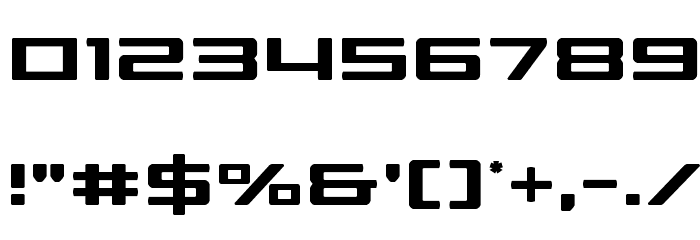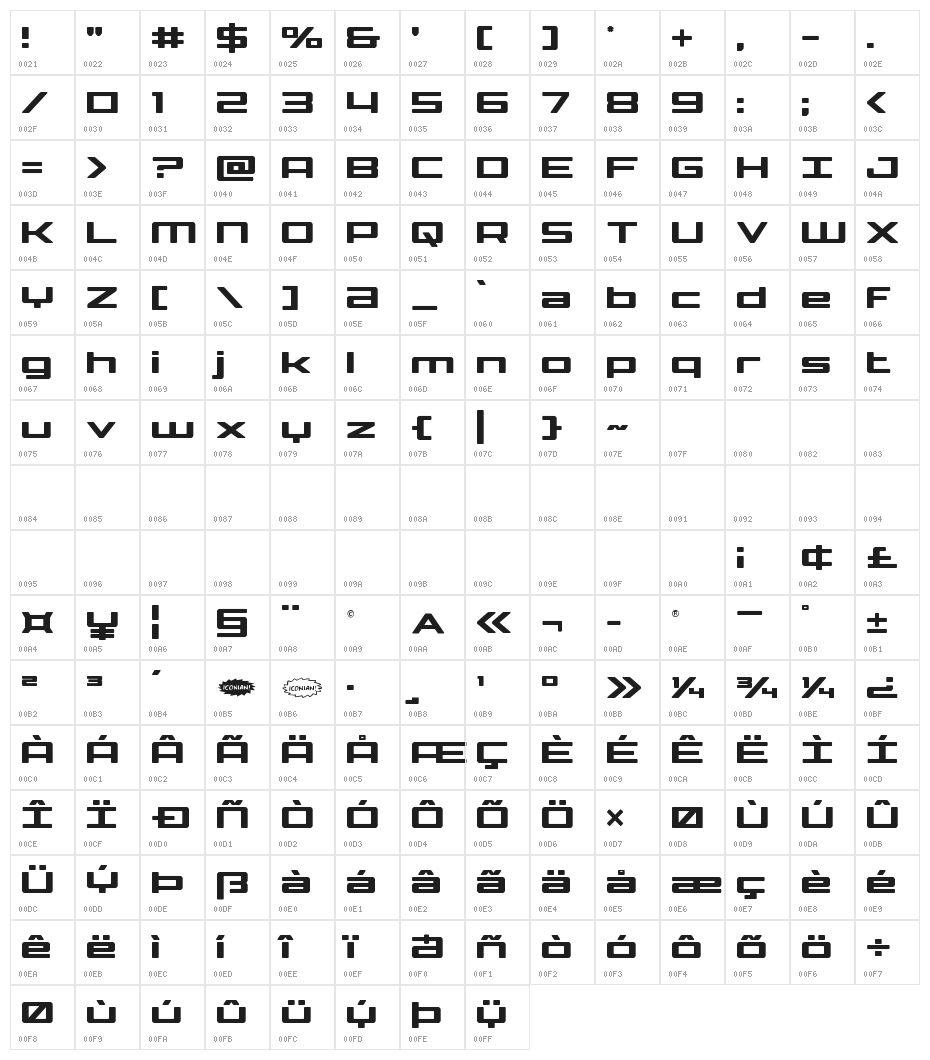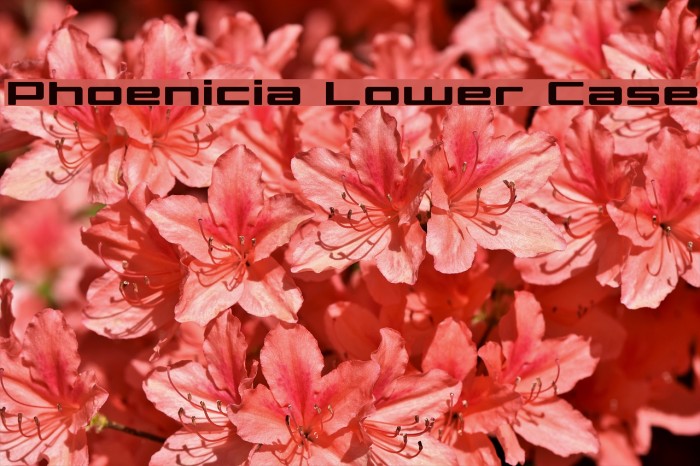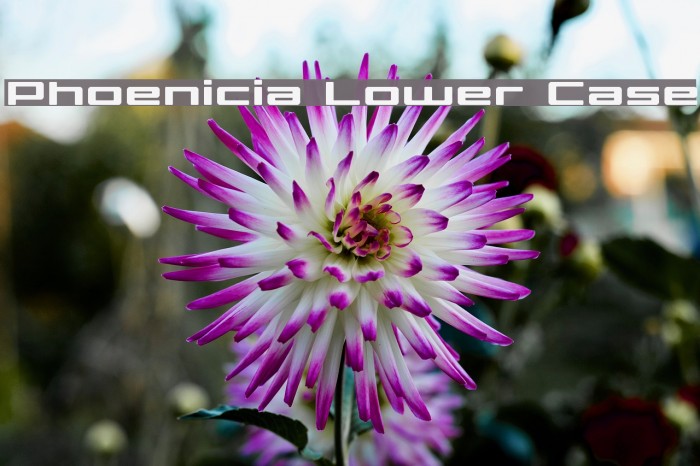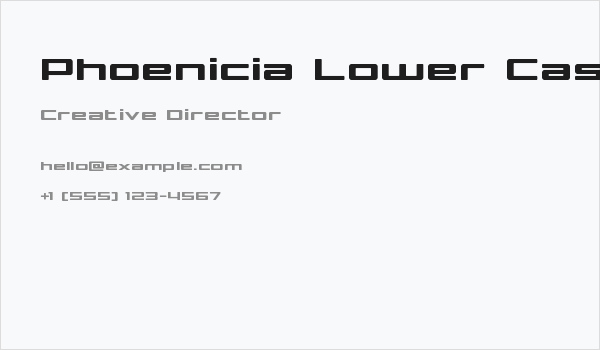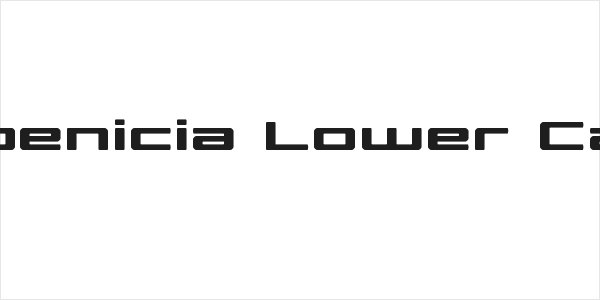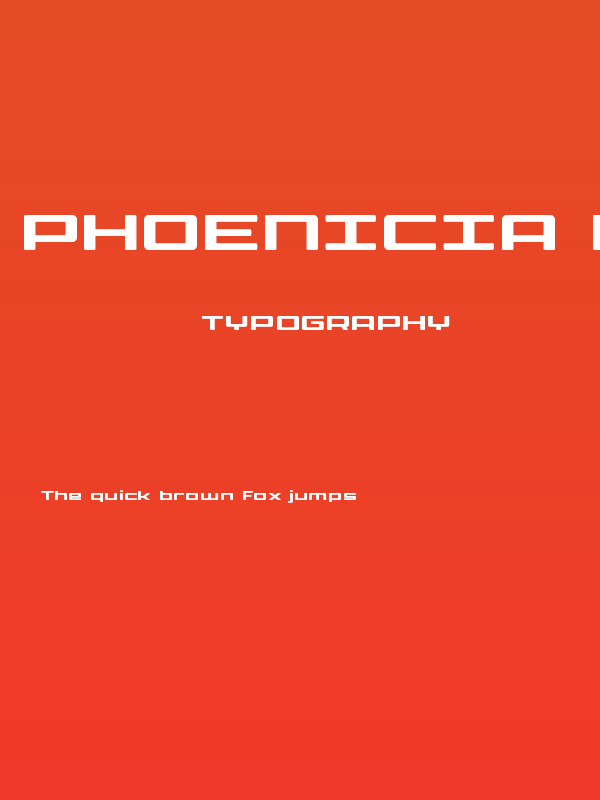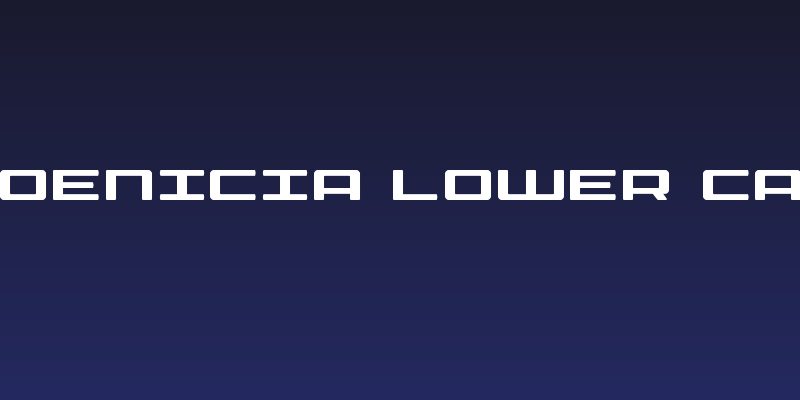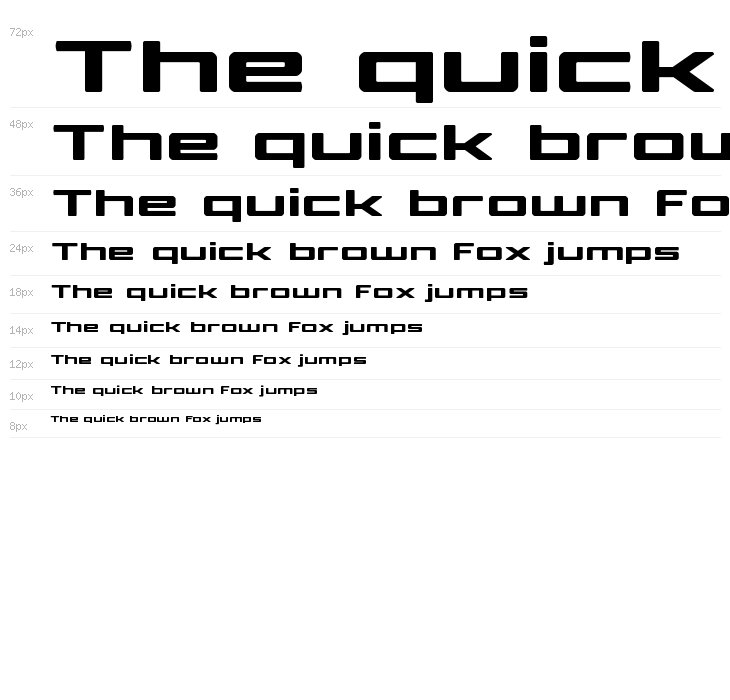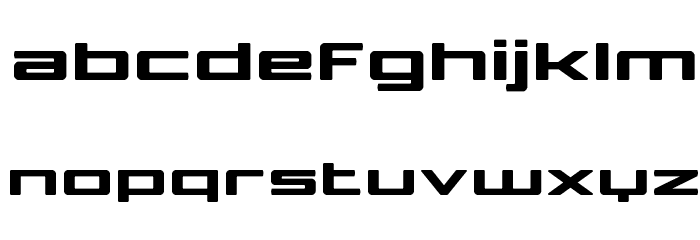
Phoenicia Lower Case Font
Phoenicia Lower Case Description
This font features a modern, geometric design with a futuristic appeal. The characters are constructed with clean, straight lines and uniform thickness, giving it a sleek and contemporary look. The uppercase and lowercase letters maintain a consistent style, with a slight angularity that adds a unique edge. The numerals and special characters follow the same design principles, ensuring a cohesive appearance across all elements. The font's structure is bold and impactful, making it suitable for attention-grabbing headlines or branding materials. Its uniformity and precision lend it a professional and polished feel.
| Proposed Projects | Ideal for technology branding, sci-fi themed projects, modern advertising, and digital interfaces. |